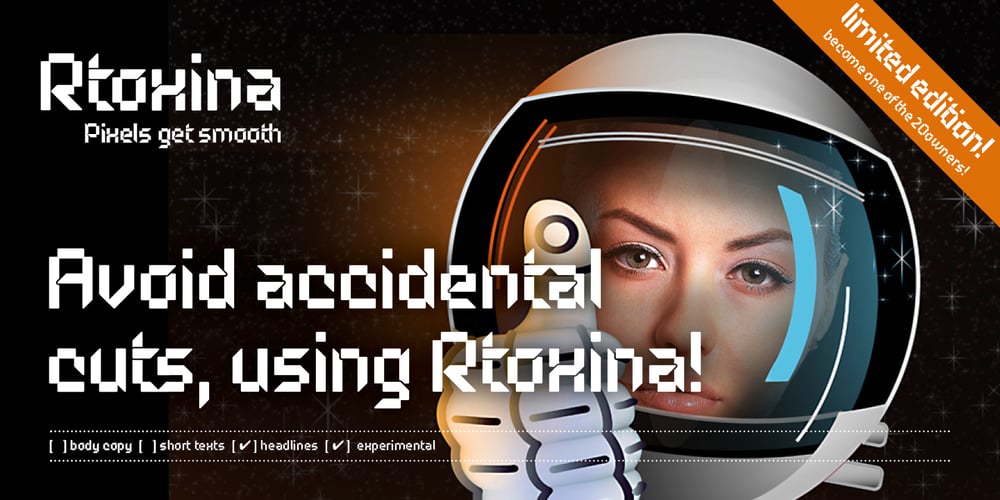
Rtoxina Font Family was designed by Filippo Salmina and published by FSdesign-Salmina. Rtoxina contains 1 styles and family package options. Rtoxina. Pixels get smooth. Rtoxina is a new member oft the Atoxina family with experimental character. This experimental pixelfont surprises with carefully rounded pixels. Avoid accidental cuts, using Rtoxina!